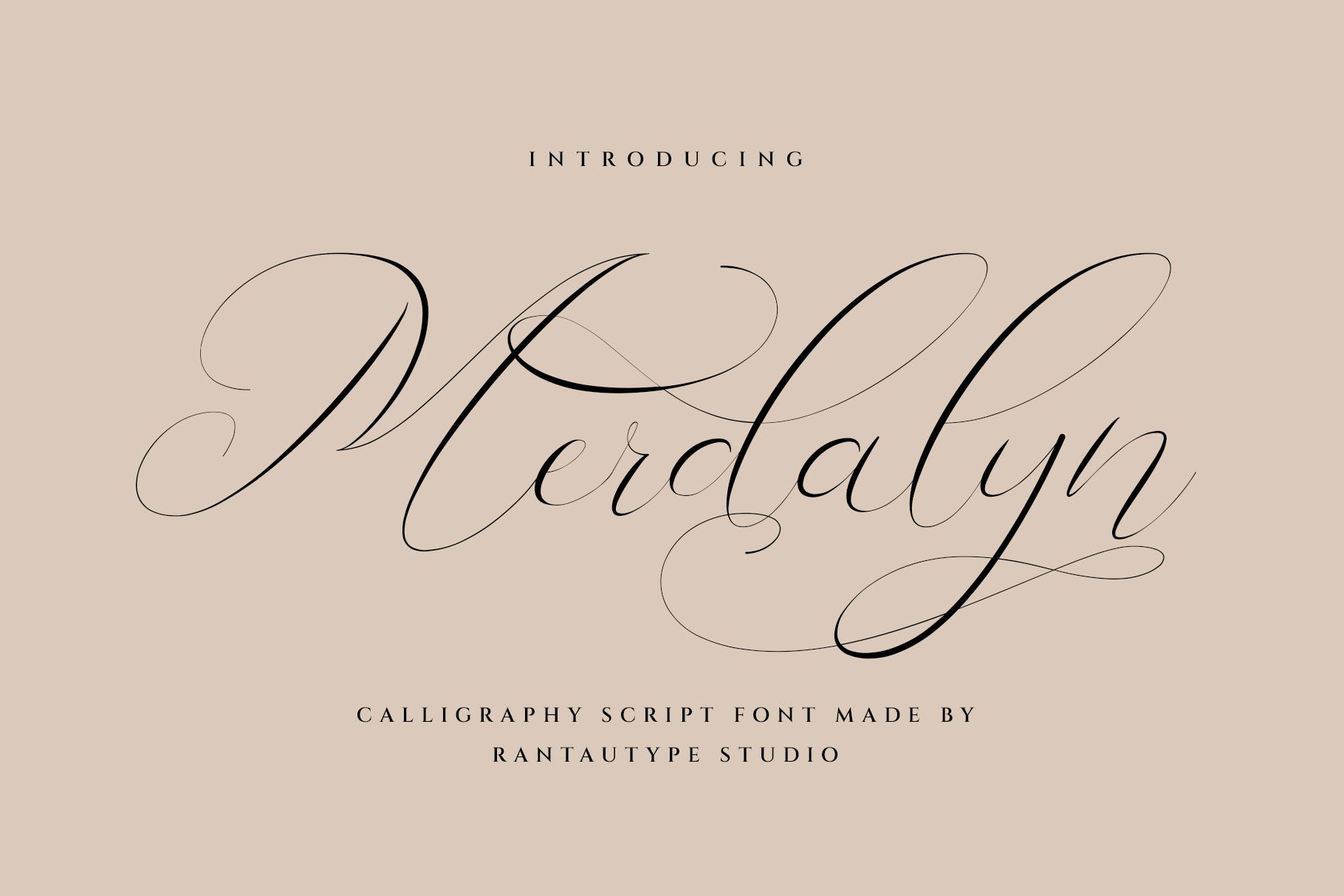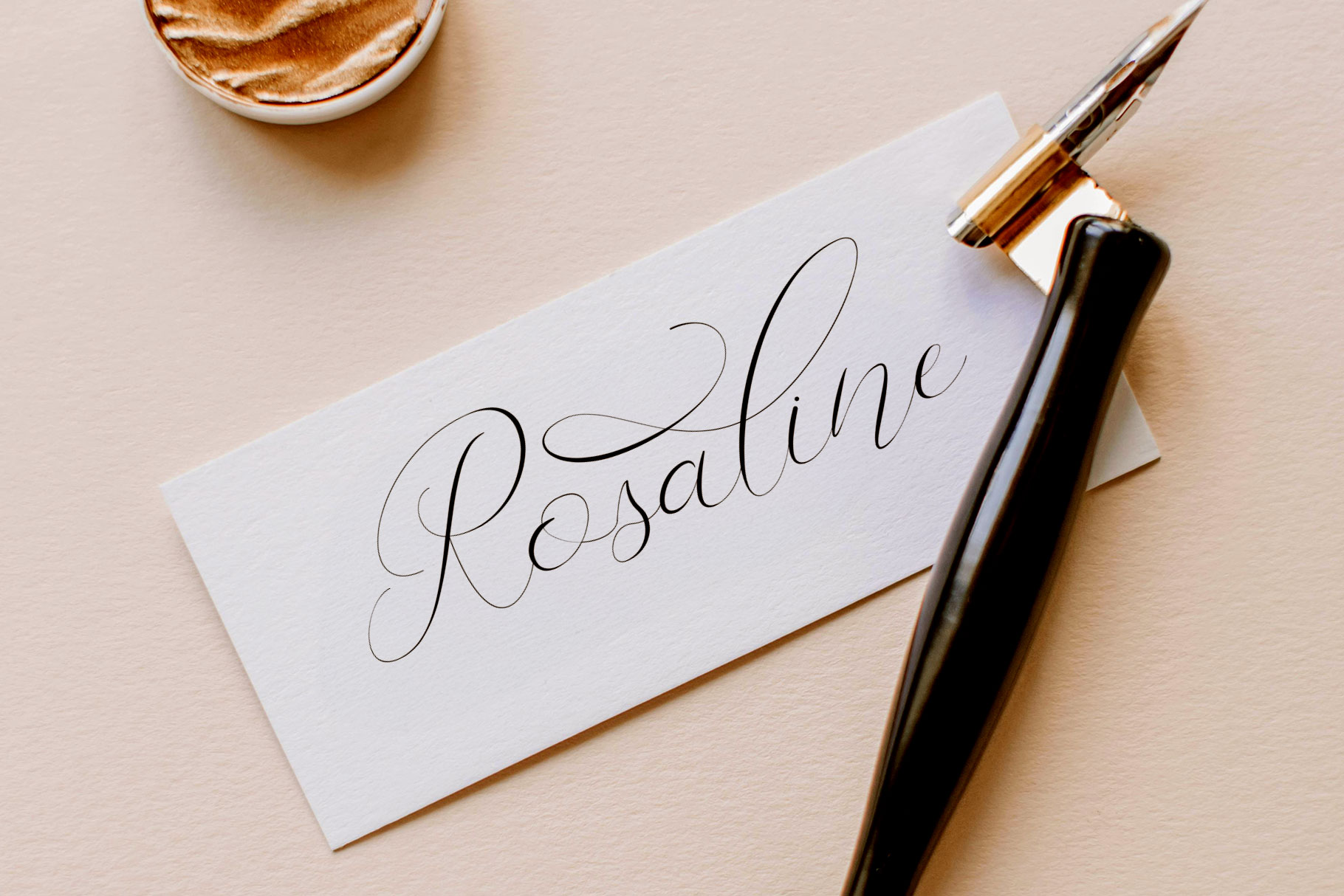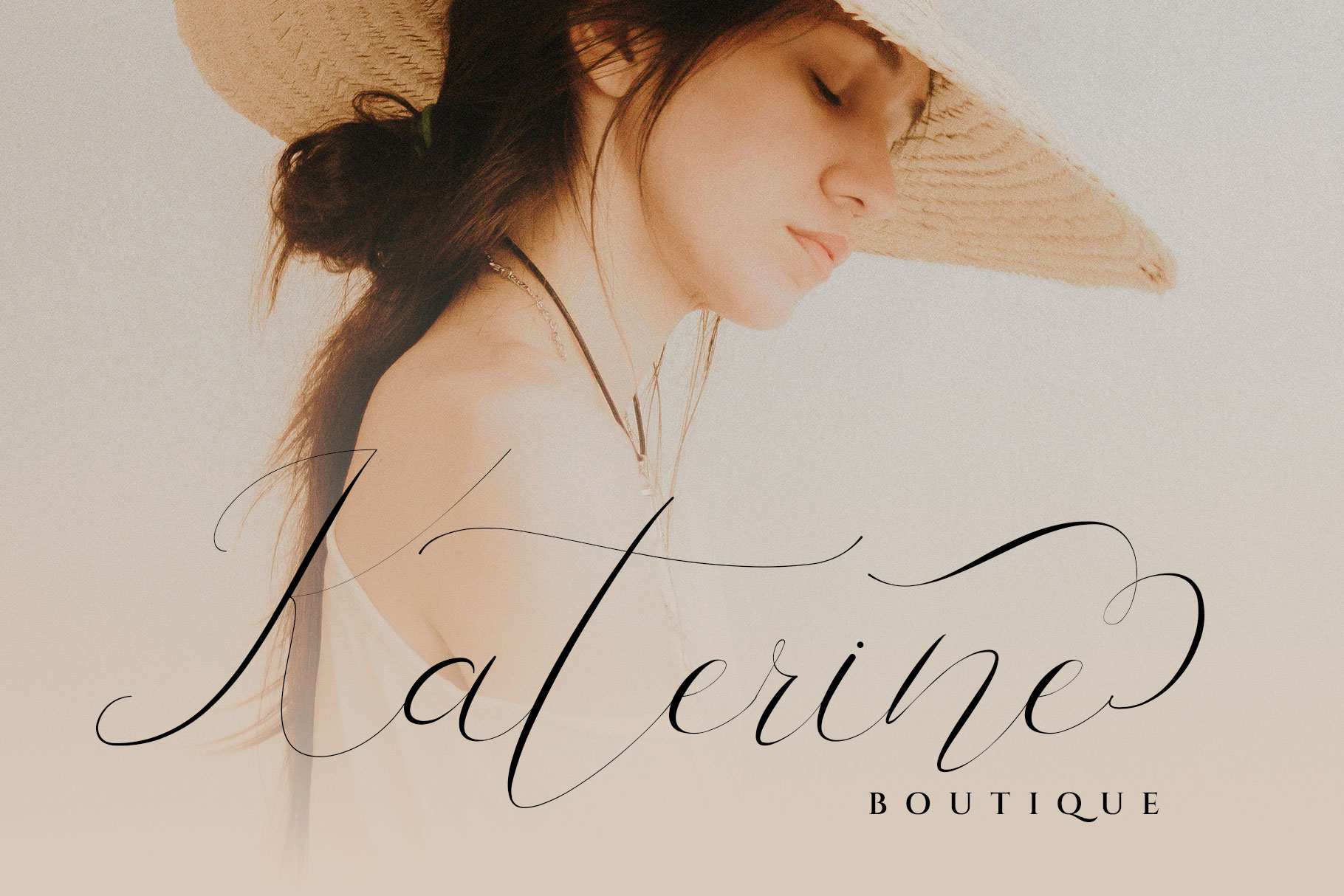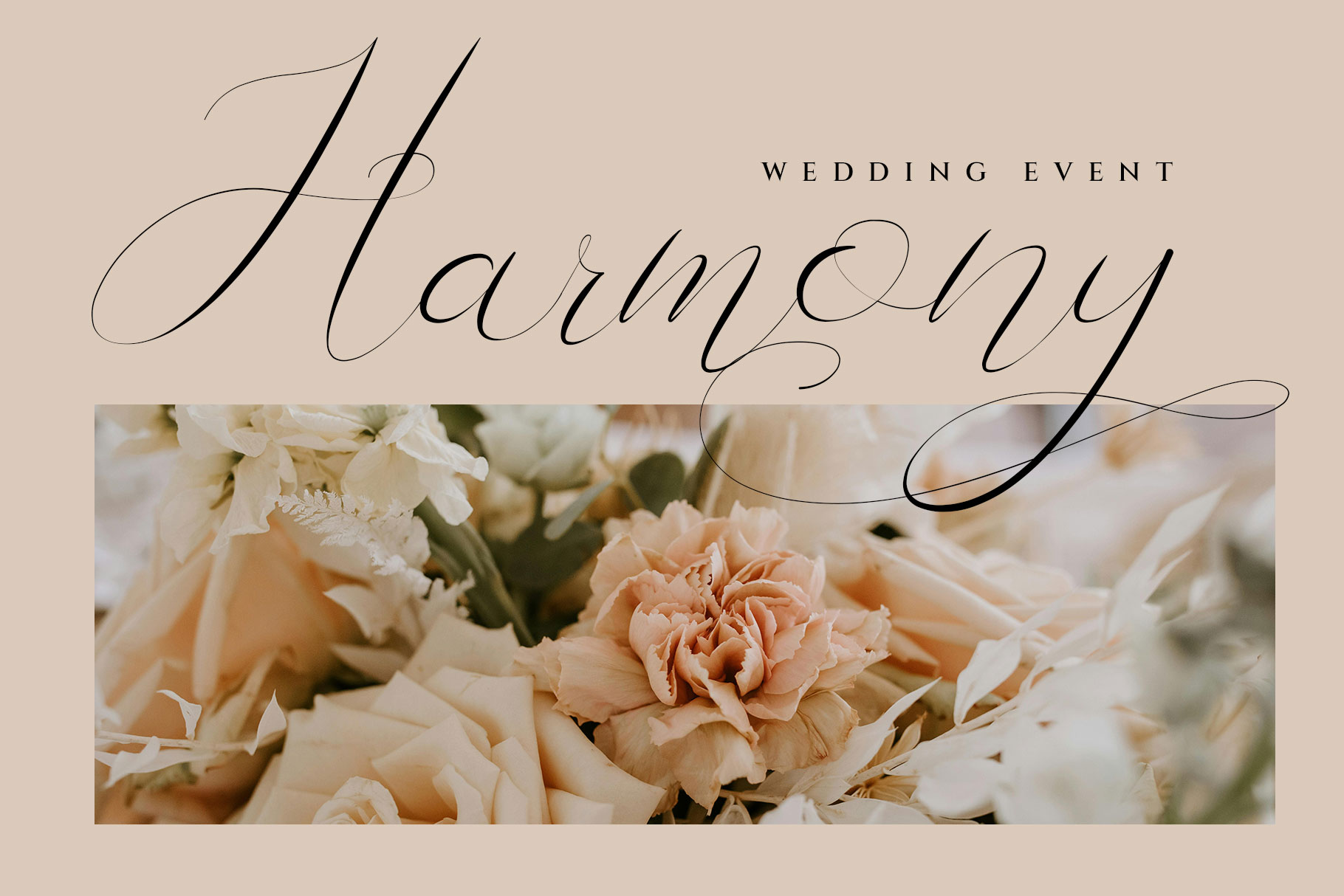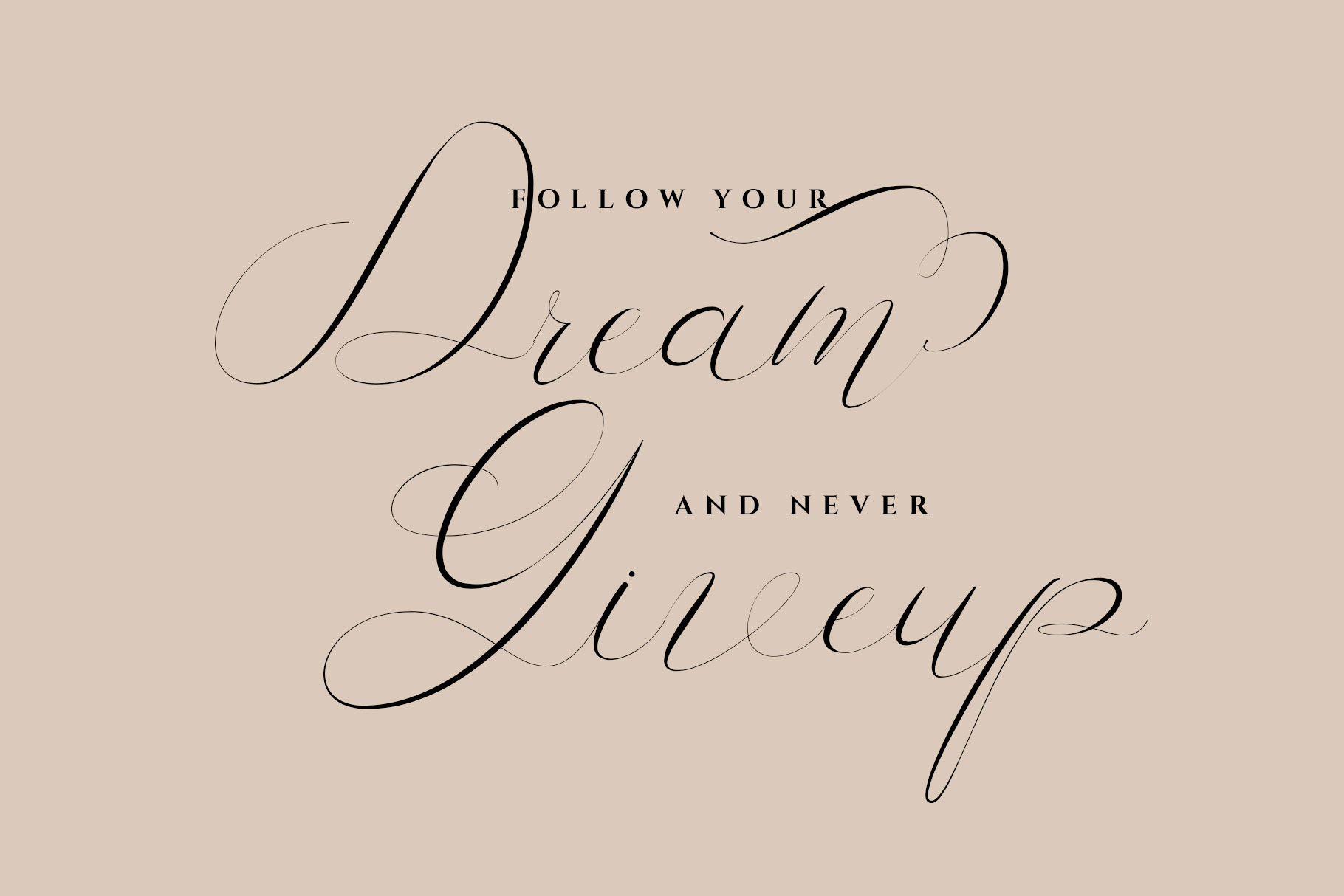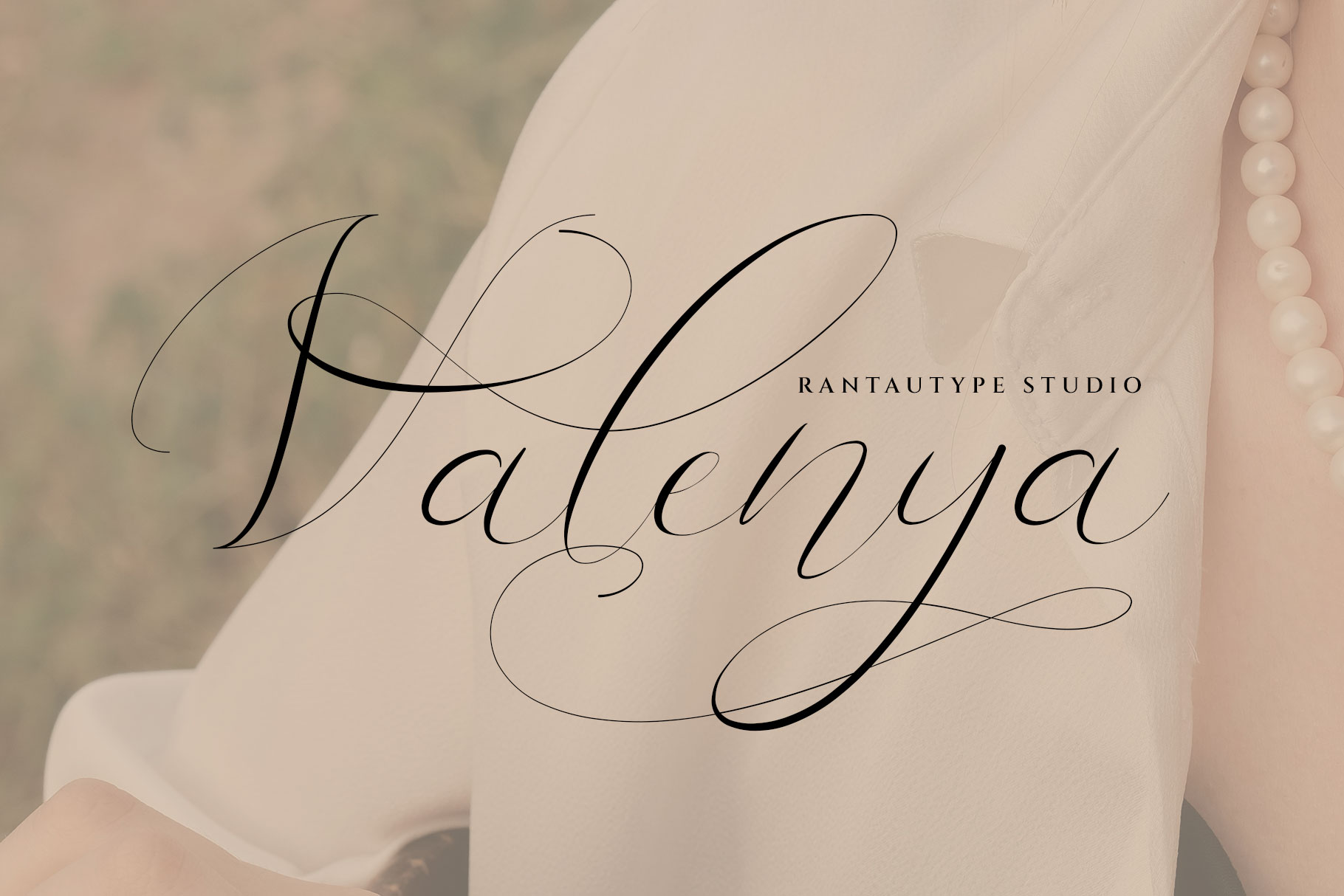
Merdalyn Calligraphy Script Font
Merdalyn is calligraphy font timeless expression of grace and artistry, designed to bring elegance and sophistication to every project Merdalyn is a perfectly choice for any creative endeavor, creating, modern, lifestyle design such as logotype, title, cover, branding, invitations, wedding designs, display and magazine, social media posts, advertisements, printed quotes, product packaging, corporate brand, product designs, labels, photography, watermarks, special events and any other project with modern touch.